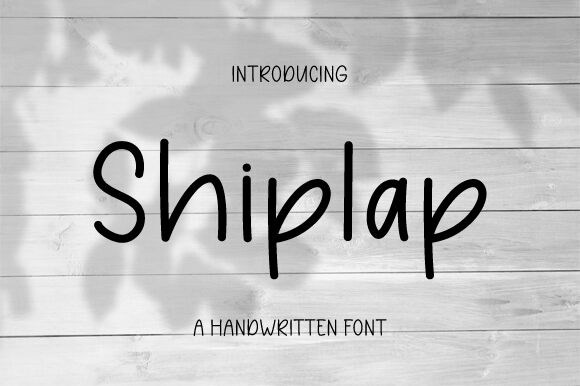
Shiplap
Embark on a journey of creativity with Shiplap, the semi-light, handwritten font crafted by the talented artisans at Graphix Line Studio. With its charming simplicity, Shiplap brings the warmth of authentic hand-lettering to your project, evoking the nostalgia of handwritten notes and personalized messages.
Perfect for educators and craft enthusiasts alike, this font shines in applications ranging from chalkboard quotations to bespoke teaching resources. Its endearing ease makes it an ideal fit for invitations, branding materials, and heartfelt greetings.
Shiplap's cute and unpretentious lettering infuses your design work with a realistic touch that digital fonts often lack. Whether you're creating whimsical book covers or playful social media graphics, Shiplap ensures that every word resonates with personality and gentle sophistication. Elevate your creative ventures with the organic charm of Shiplap-a font that truly speaks from the heart.